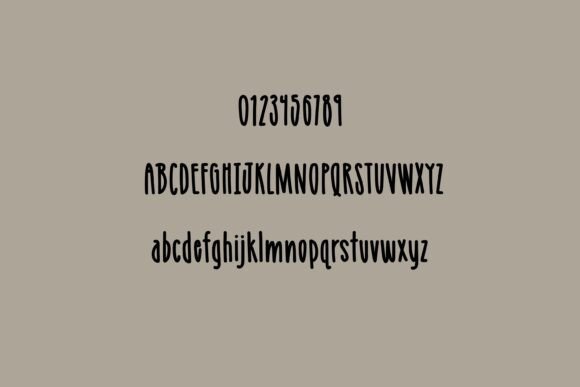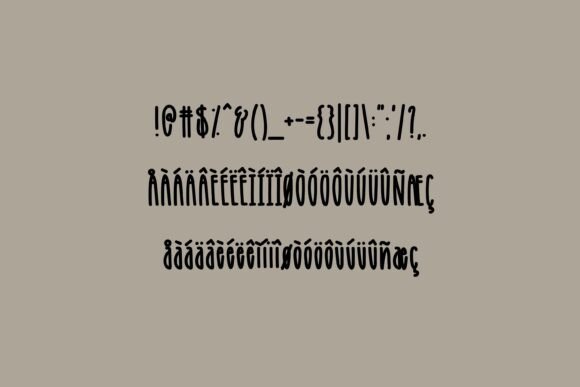
Introducing Black Coffee Font: The Perfect Blend of Playfulness and Personality
Are you tired of using the same old fonts in your design projects? Look no further than Black Coffee, a charming and playful handwritten font that’s sure to add a touch of warmth and personality to your work. With its quirky yet clean letterforms, Black Coffee is the perfect choice for designers and crafters looking to create unique and eye-catching designs that stand out from the crowd.
The Characteristics of Black Coffee Font
Black Coffee is a handwritten font that’s all about warmth and personality. Its letterforms are playful and quirky, with a clean and modern twist that makes it easy to read and versatile enough to use in a variety of design projects. Whether you’re working on branding, social media graphics, invitations, or crafting, Black Coffee is the perfect choice.
One of the standout features of Black Coffee is its ability to add a cozy, handmade touch to your designs. The font’s playful and laid-back vibe makes it perfect for creating designs that feel welcoming and modern. Plus, its clean letterforms ensure that your text remains easy to read, even at smaller sizes.
Uses for Black Coffee Font
Black Coffee is a versatile font that can be used in a wide range of design projects. Here are just a few ideas to get you started:
- Branding: Use Black Coffee to create unique and eye-catching logos, business cards, and other branding materials that reflect your company’s personality and style.
- Social Media Graphics: Add a touch of personality to your social media graphics with Black Coffee. The font’s playful vibe makes it perfect for creating engaging and shareable content.
- Invitations: Create beautiful and unique invitations for weddings, parties, and other special events with Black Coffee. The font’s handmade touch adds a touch of warmth and personality to any invitation.
- Crafting: Black Coffee is also perfect for crafters who want to add a personal touch to their projects. Use the font to create unique labels, signs, and other embellishments that showcase your personality and style.
Pairing Black Coffee with Other Design Elements
One of the best things about Black Coffee is its versatility. The font can be paired with a wide range of design elements to create unique and eye-catching designs. Here are a few ideas:
- Bold Graphics: Pair Black Coffee with bold graphics and bright colors to create a design that’s modern and eye-catching.
- Muted Tones: For a more subtle look, pair Black Coffee with muted tones and soft pastels. This creates a design that’s welcoming and calming.
- Textures: Add texture to your design by pairing Black Coffee with rough, handmade textures. This creates a design that feels cozy and organic.
Why Choose Black Coffee Font?
So why choose Black Coffee font for your next design project? Here are just a few reasons:
- Unique and Eye-Catching: Black Coffee is a unique and eye-catching font that’s sure to stand out from the crowd.
- Versatile: The font is versatile and can be used in a wide range of design projects.
- Easy to Read: Despite its playful vibe, Black Coffee is easy to read and can be used at a variety of sizes.
- Handmade Touch: The font’s handmade touch adds a touch of warmth and personality to any design.
Black Coffee font is a charming and playful handwritten font that’s perfect for designers and crafters looking to add a touch of warmth and personality to their designs. With its quirky yet clean letterforms, Black Coffee is versatile and easy to read, making it perfect for a wide range of design projects. Whether you’re working on branding, social media graphics, invitations, or crafting, Black Coffee is the perfect choice. So why not give it a try and see the difference it can make in your designs?